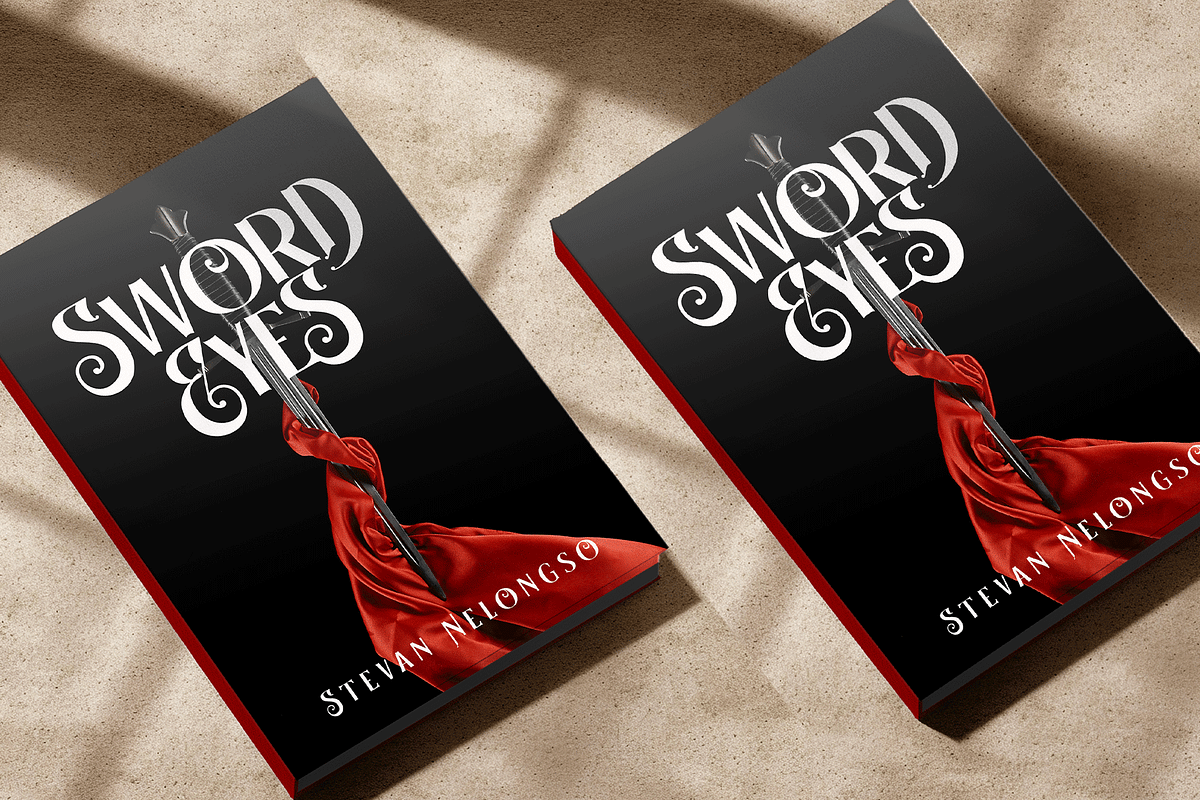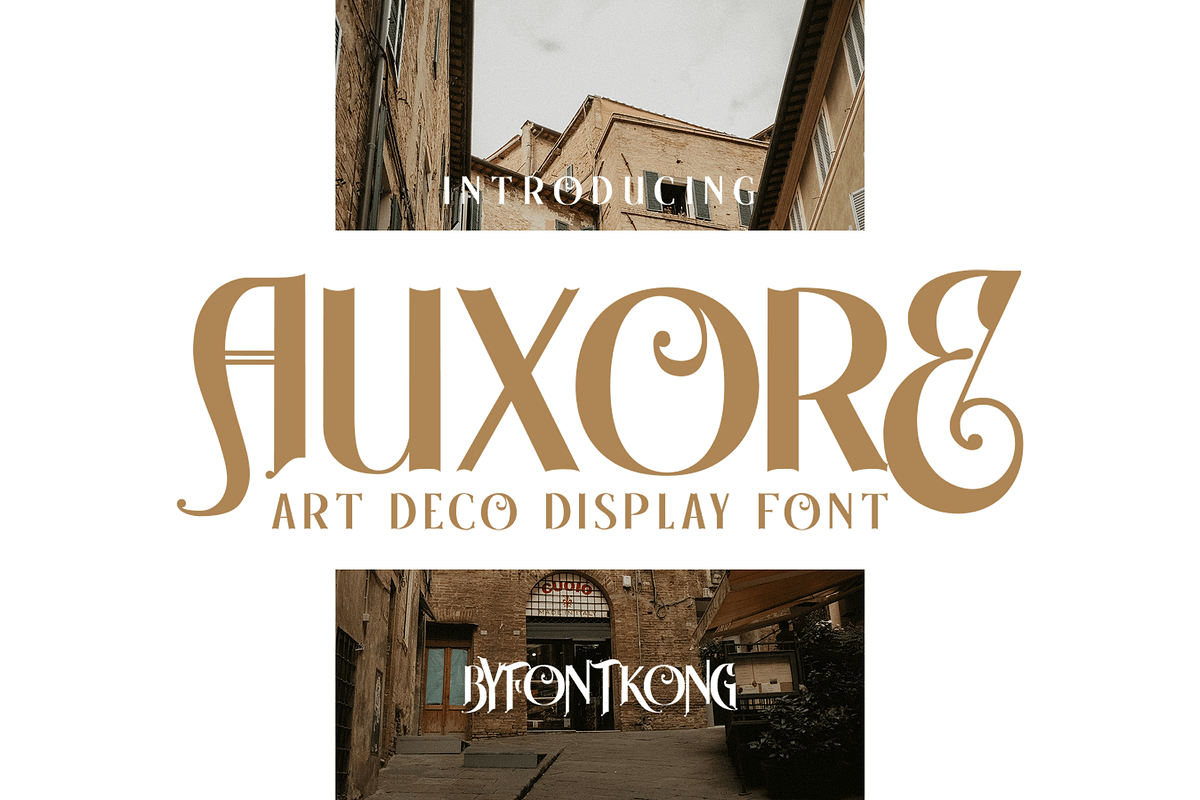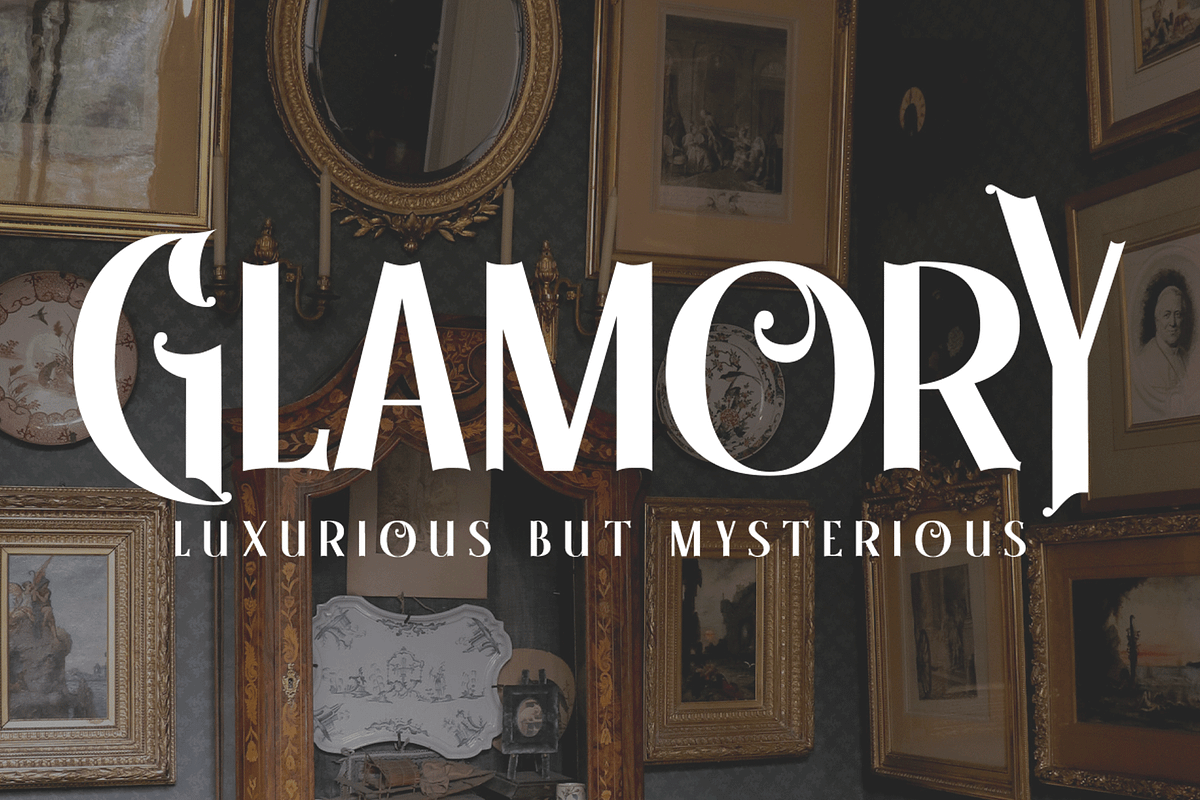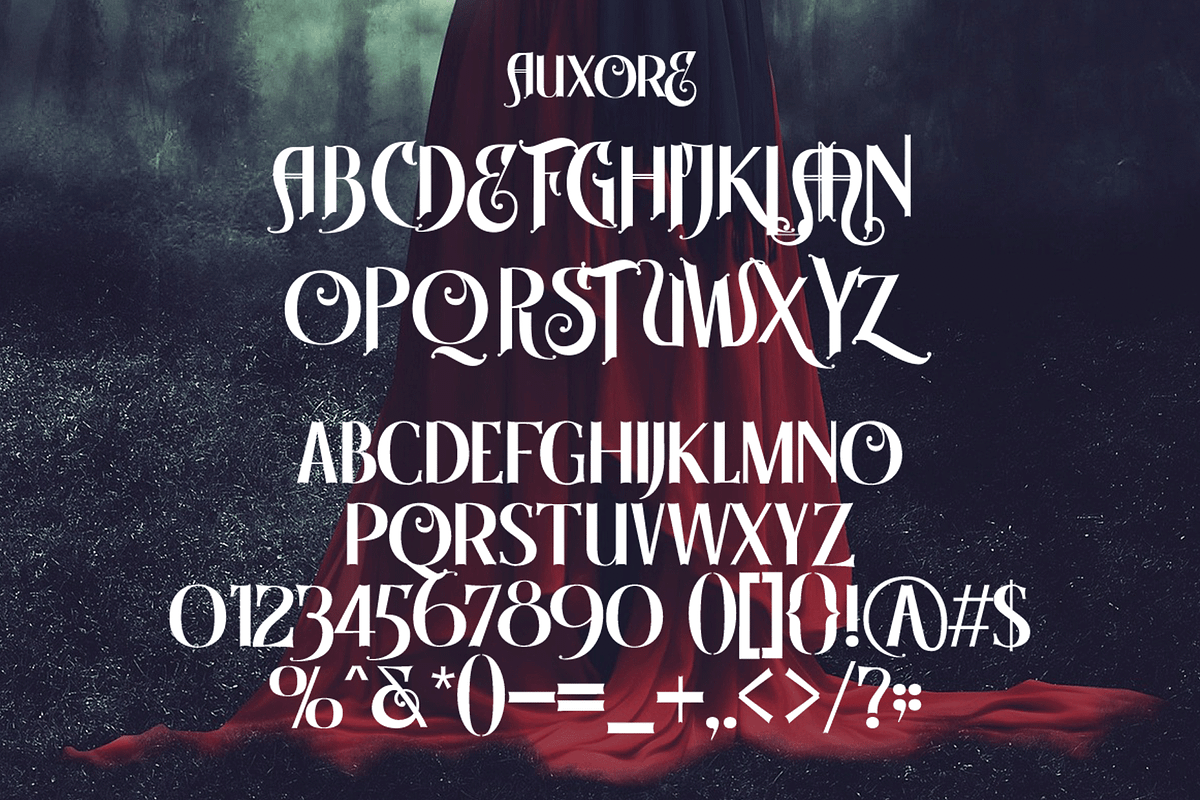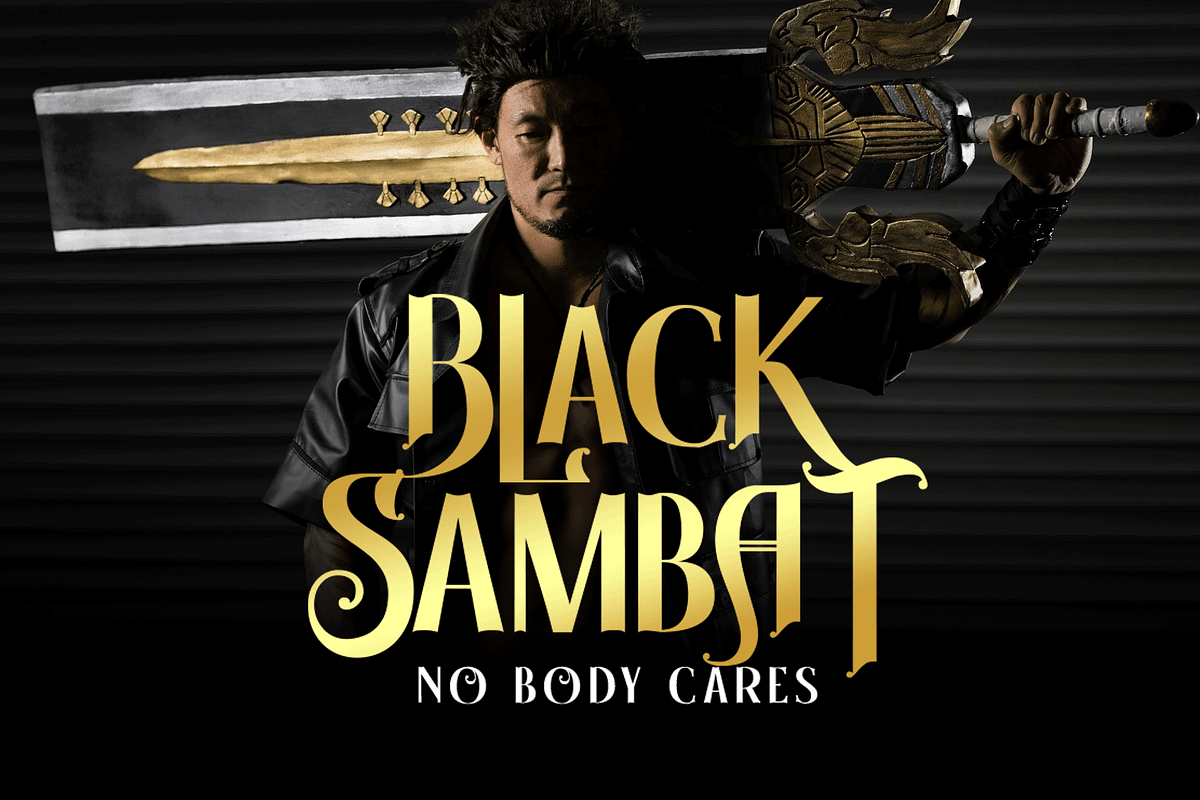
Auxore – Art Deco Display Font
Introducing Auxore, an Art Deco-inspired display font that channels the glamour and sophistication of the Roaring Twenties with a modern flair. Its bold geometric forms, elegant curves, and stylish symmetry make it a standout typeface for designs that demand both luxury and vintage charm.
Perfect for branding, high-end packaging, poster headlines, invitations, and editorial layouts, Auxore adds a dramatic yet refined touch to every composition. Whether you're crafting a Gatsby-style event design or a chic fashion label, this font captures the essence of the Art Deco movement with sleek elegance.
Auxore includes uppercase characters, alternates, numerals, and essential punctuation, giving you the creative flexibility to build visually stunning, era-inspired typography.